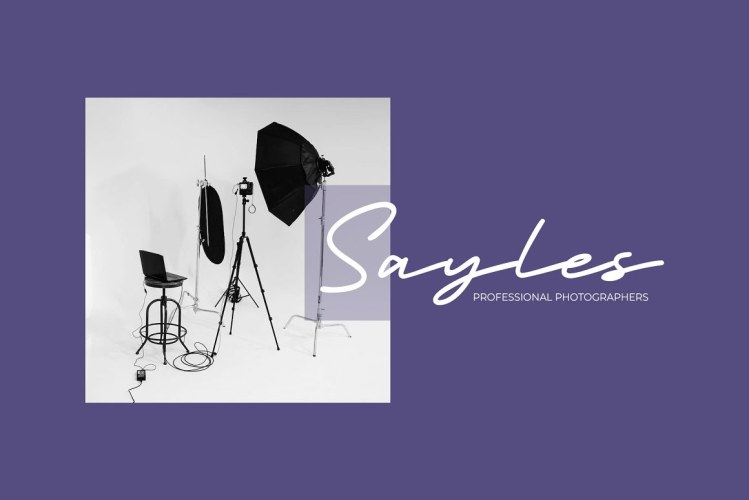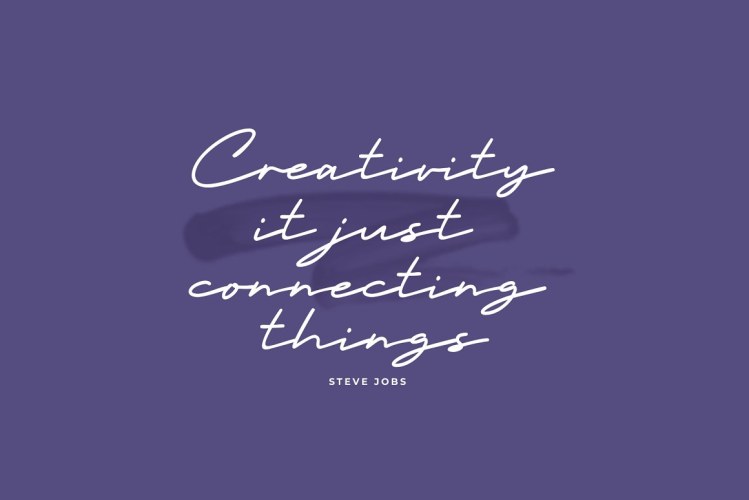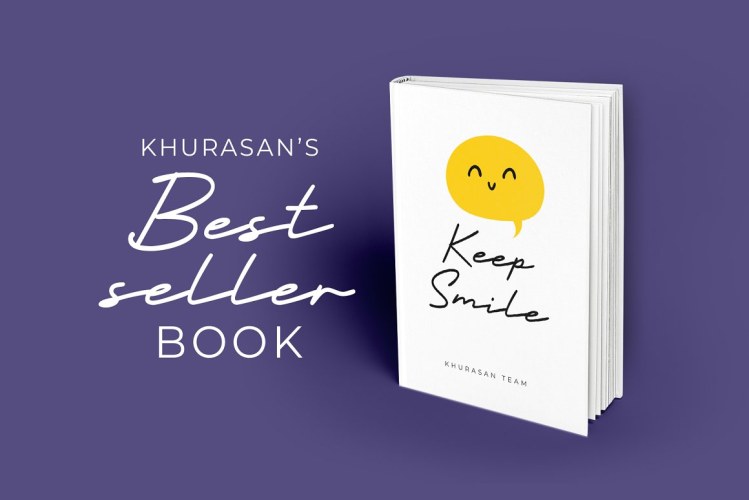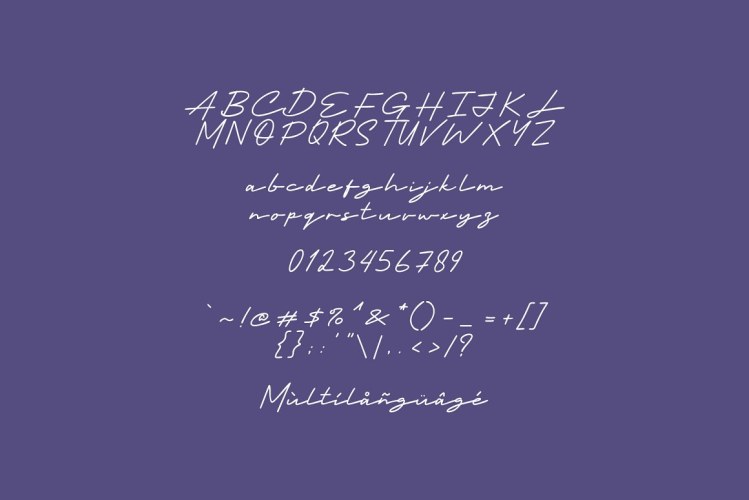
Indosign – Elegant Script Font
Indosign is a modern and elegant script font. Indosign font suitable for logo, branding, greeting card, poster and any design that you create
Where Indosign – Elegant Script Font works best
A short phrase in Indosign – Elegant Script Font carries warmth that a typeset sans cannot fake; keep the rest of the card plain.
Chalkboard-style headings in Indosign – Elegant Script Font make a menu feel hand-made. Keep the dish descriptions in a simple face so prices stay readable.
One line of Indosign – Elegant Script Font over a photo is enough; the script carries the tone and the caption does the work.
What kind of work does Indosign – Elegant Script Font suit?
It sits in the Script And Handwritten group and reads as branding, elegant, indosign elegant script font, modern. That makes it a candidate wherever those qualities help: headings, packaging, social graphics and brand work. Set it at the size you plan to use before deciding.